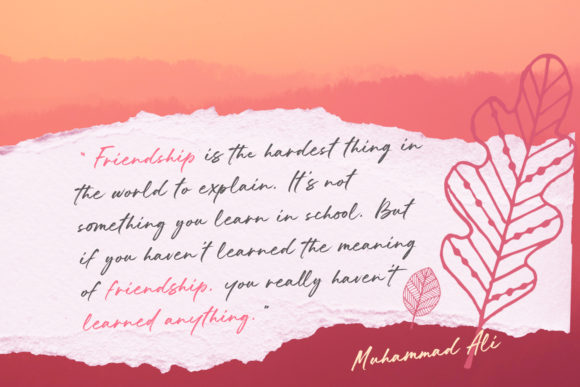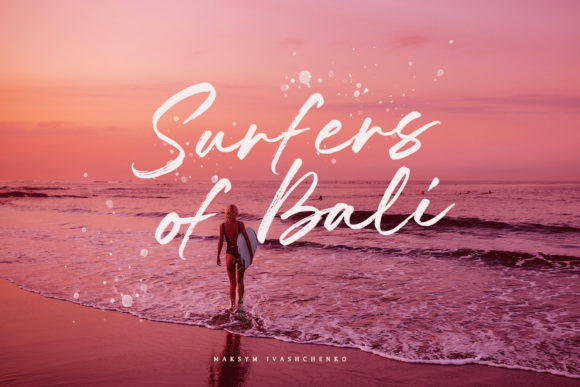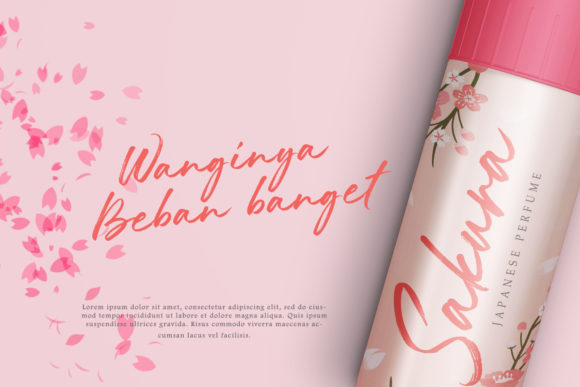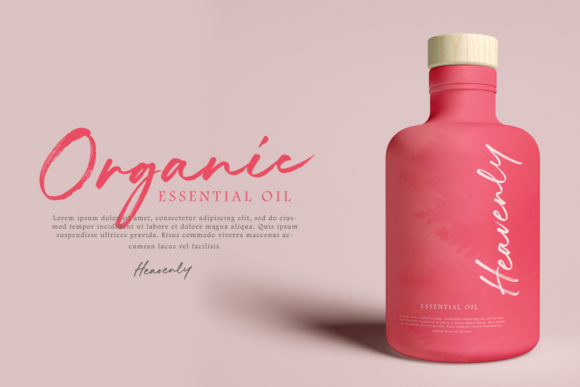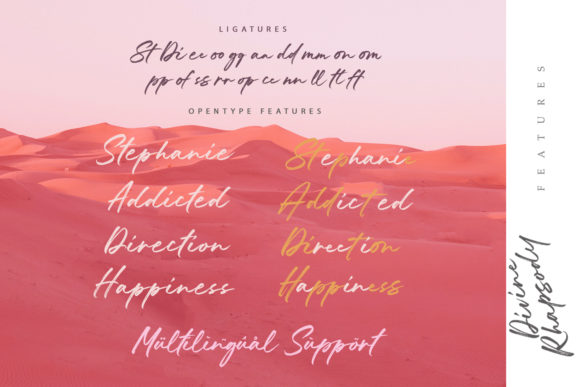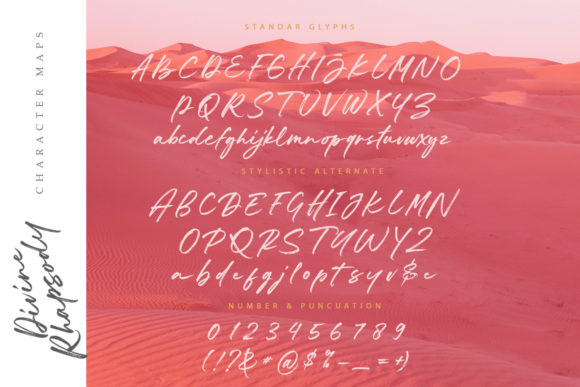
Introducing Divine Rhapsody Font: Elevate Your Designs with Elegance
Are you a designer or crafter looking for a font that exudes elegance and sophistication? Look no further than Divine Rhapsody Font, a stunning brushed handwritten font that can elevate your designs to new heights. With its beautiful, flowing script and versatility, Divine Rhapsody is perfect for a wide range of applications, from logos and wedding invitations to headings, t-shirts, and more.
What is Divine Rhapsody Font?
Divine Rhapsody Font is a carefully crafted, brushed handwritten font that boasts a unique, elegant style. Its flowing script and subtle imperfections give it a personal, human touch that’s perfect for designs that require a touch of sophistication. Whether you’re creating a logo, invitation, or signage, Divine Rhapsody Font is sure to make a lasting impression.
Uses for Divine Rhapsody Font
One of the best things about Divine Rhapsody Font is its versatility. It’s perfect for a wide range of applications, including:
- Logos: Create a stunning logo for your business or brand with Divine Rhapsody Font. Its elegant script and unique style make it perfect for businesses that want to stand out from the crowd.
- Wedding Invitations: Make your wedding invitations truly special with Divine Rhapsody Font. Its beautiful, flowing script is perfect for formal or informal wedding invitations, and can be used to set the tone for your special day.
- Headings: Add a touch of elegance to your headings with Divine Rhapsody Font. Its unique style and flowing script make it perfect for headings, titles, and subtitles.
- T-Shirts: Create custom t-shirts with Divine Rhapsody Font that’s sure to turn heads. Its elegant script and unique style make it perfect for fashion brands, designers, and crafters.
- Letterhead: Elevate your letterhead with Divine Rhapsody Font. Its professional, elegant style makes it perfect for businesses, organizations, and individuals who want to make a lasting impression.
- Signage: Create eye-catching signage with Divine Rhapsody Font that’s sure to grab attention. Its unique style and flowing script make it perfect for storefronts, events, and exhibitions.
- Labels: Add a touch of elegance to your labels with Divine Rhapsody Font. Its beautiful, flowing script is perfect for product labels, gift tags, and more.
- News: Use Divine Rhapsody Font to create stunning newspaper or magazine headers, or to add a touch of elegance to your online news articles.
- Posters: Create eye-catching posters with Divine Rhapsody Font that’s sure to grab attention. Its unique style and flowing script make it perfect for advertising, promotions, and events.
- Badges: Design custom badges with Divine Rhapsody Font that’s perfect for events, conferences, and trade shows.
Why Choose Divine Rhapsody Font?
So why choose Divine Rhapsody Font for your designs? Here are just a few reasons:
- Unique Style: Divine Rhapsody Font boasts a unique, elegant style that’s sure to set your designs apart from the crowd.
- Versatility: Divine Rhapsody Font is perfect for a wide range of applications, from logos and wedding invitations to headings, t-shirts, and more.
- Elegance: Divine Rhapsody Font exudes elegance and sophistication, making it perfect for designs that require a touch of refinement.
Tips for Using Divine Rhapsody Font
Here are a few tips for using Divine Rhapsody Font in your designs:
- Pair with Other Fonts: Divine Rhapsody Font pairs perfectly with other fonts, so feel free to experiment with different combinations to find the perfect look for your design.
- Use for Headings: Divine Rhapsody Font is perfect for headings, titles, and subtitles, so don’t be afraid to use it to add a touch of elegance to your designs.
- Experiment with Colors: Divine Rhapsody Font looks great in a variety of colors, so experiment with different colors to find the perfect look for your design.
Divine Rhapsody Font is a stunning brushed handwritten font that’s perfect for designers and crafters who want to elevate their designs to new heights. With its unique style, versatility, and elegance, Divine Rhapsody Font is sure to become a go-to font in your design arsenal. So why wait? Download Divine Rhapsody Font today and start creating stunning designs that exude elegance and sophistication.